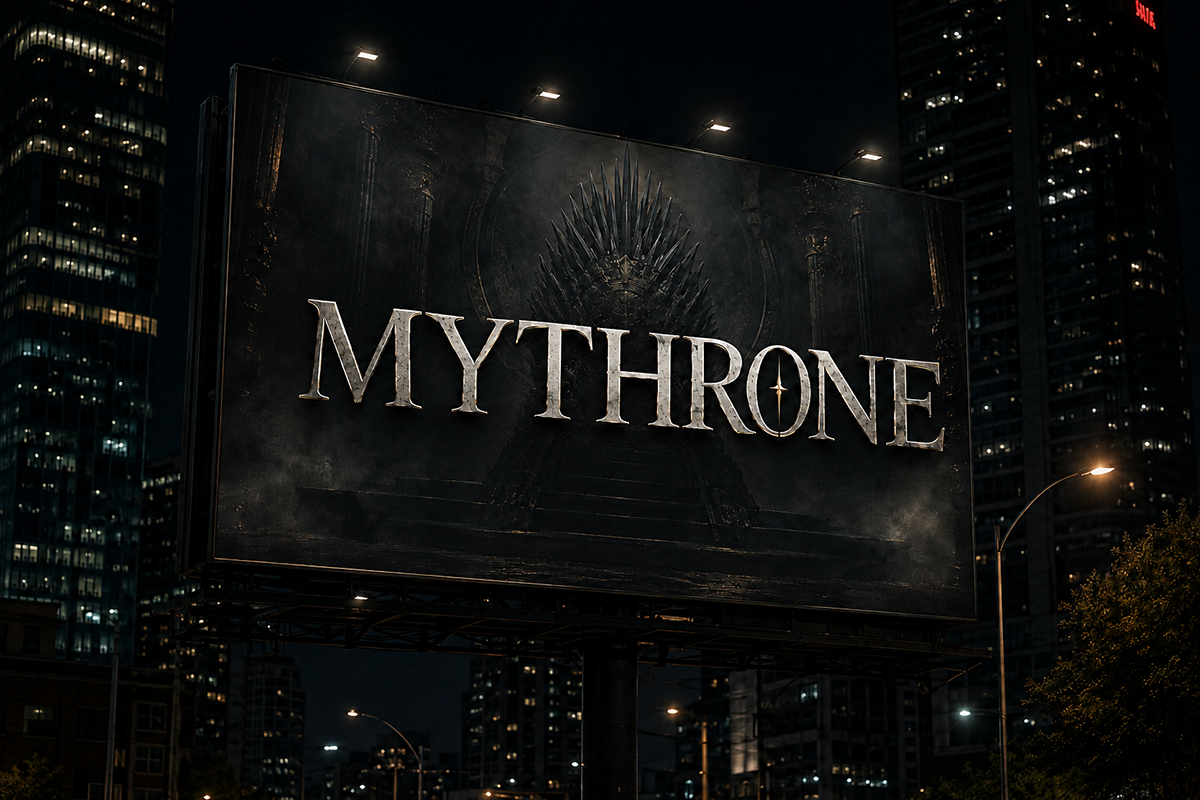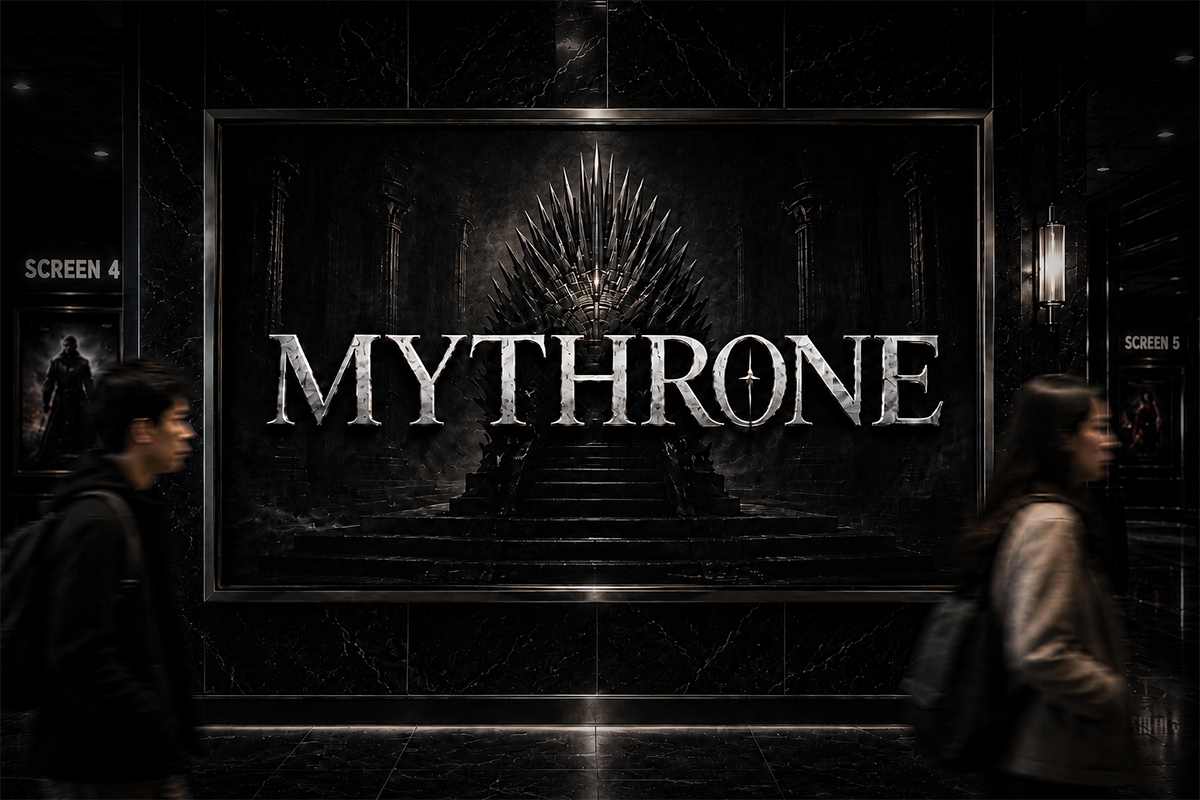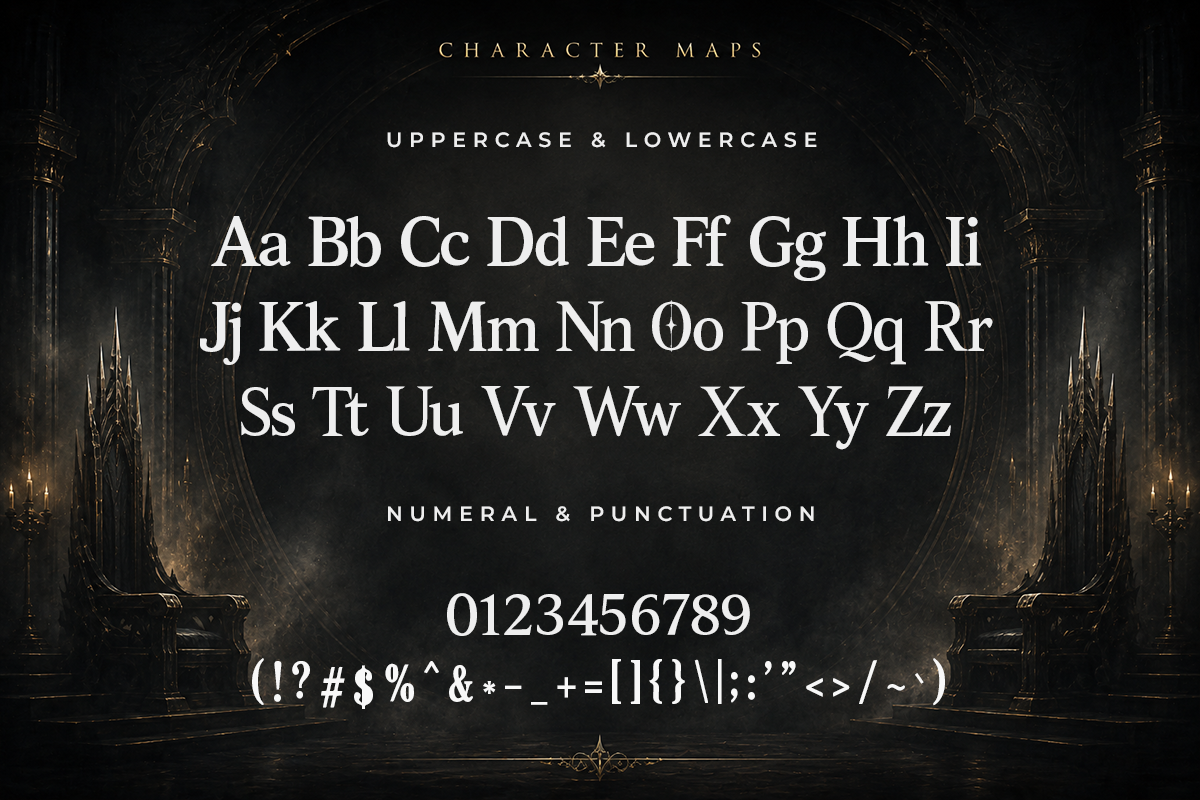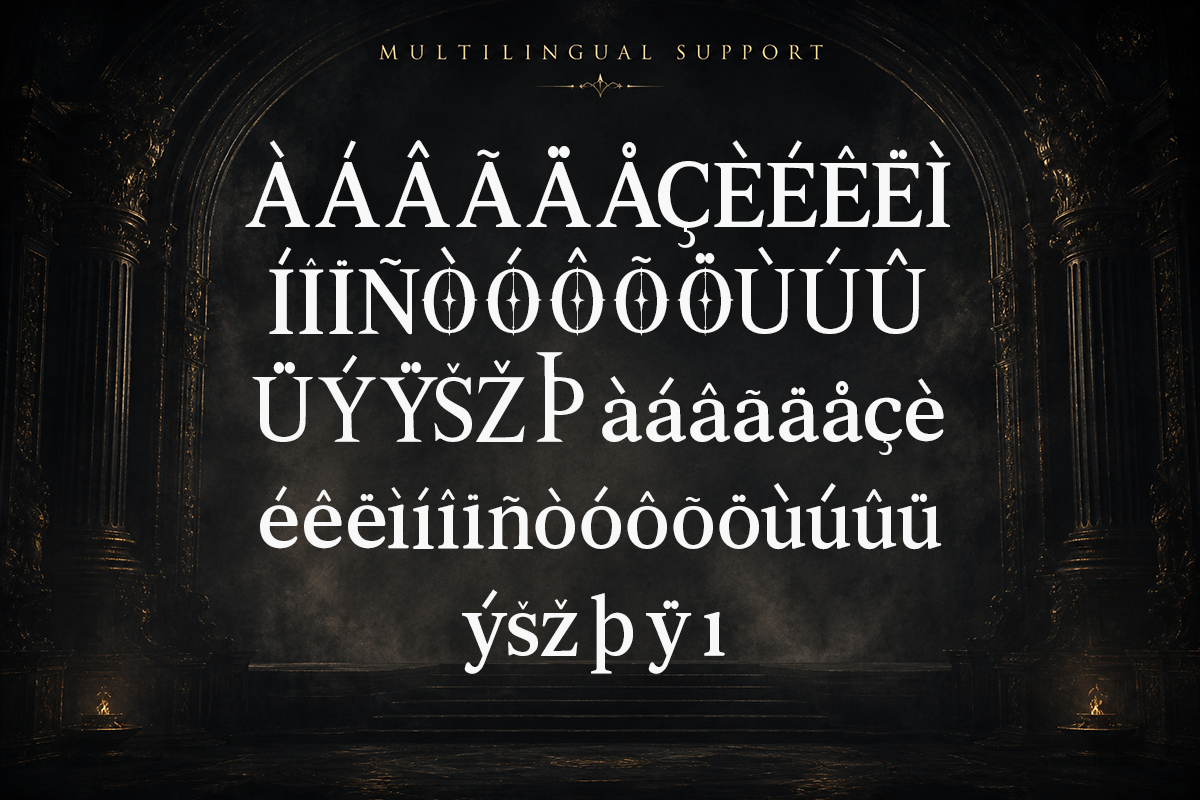
Mythrone is an elegant cinematic display font created for epic fantasy, historical drama, royal branding, and premium visual storytelling. Its refined serif structure, sharp details, and majestic proportions give every title a powerful and sophisticated presence.
Inspired by dark kingdoms, legendary dynasties, ancient empires, and cinematic fantasy worlds, Mythrone is perfect for projects that need a dramatic, luxurious, and authoritative atmosphere.
The font works especially well in large-scale typography, making it ideal for movie titles, film posters, streaming series, book covers, game branding, luxury logos, editorial headlines, trailers, merchandise, and promotional campaigns.